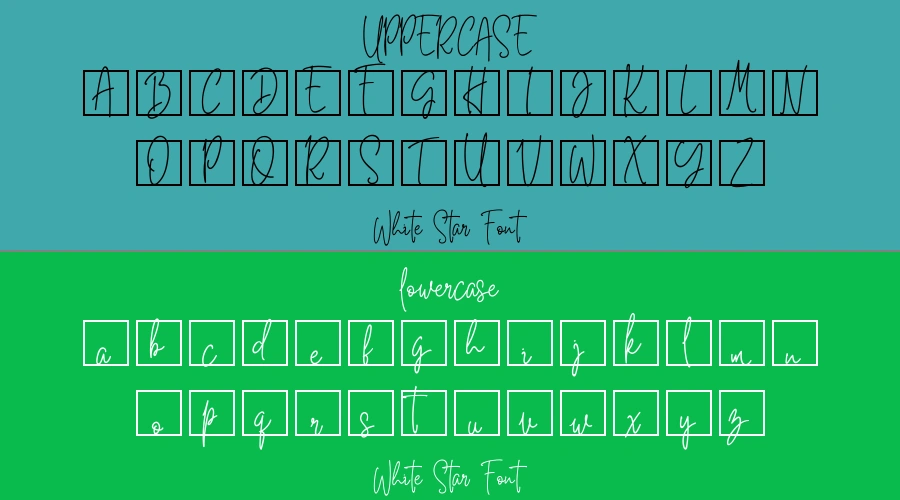
About White Star Font
White Star Font represents a sophisticated approach to type design, balancing hairline details with design harmony. Perfect for literary works, this font family showcases impressive clarity and literary appropriateness throughout its character set. Designers appreciate its versatility and reliability.
Designers will appreciate nuanced touches including ball terminals and beginning forms, adding sophistication to any project. These features become apparent in campaign headers, where headline impact matters most. The careful treatment of curve radius and subtle details ensures optimal performance.